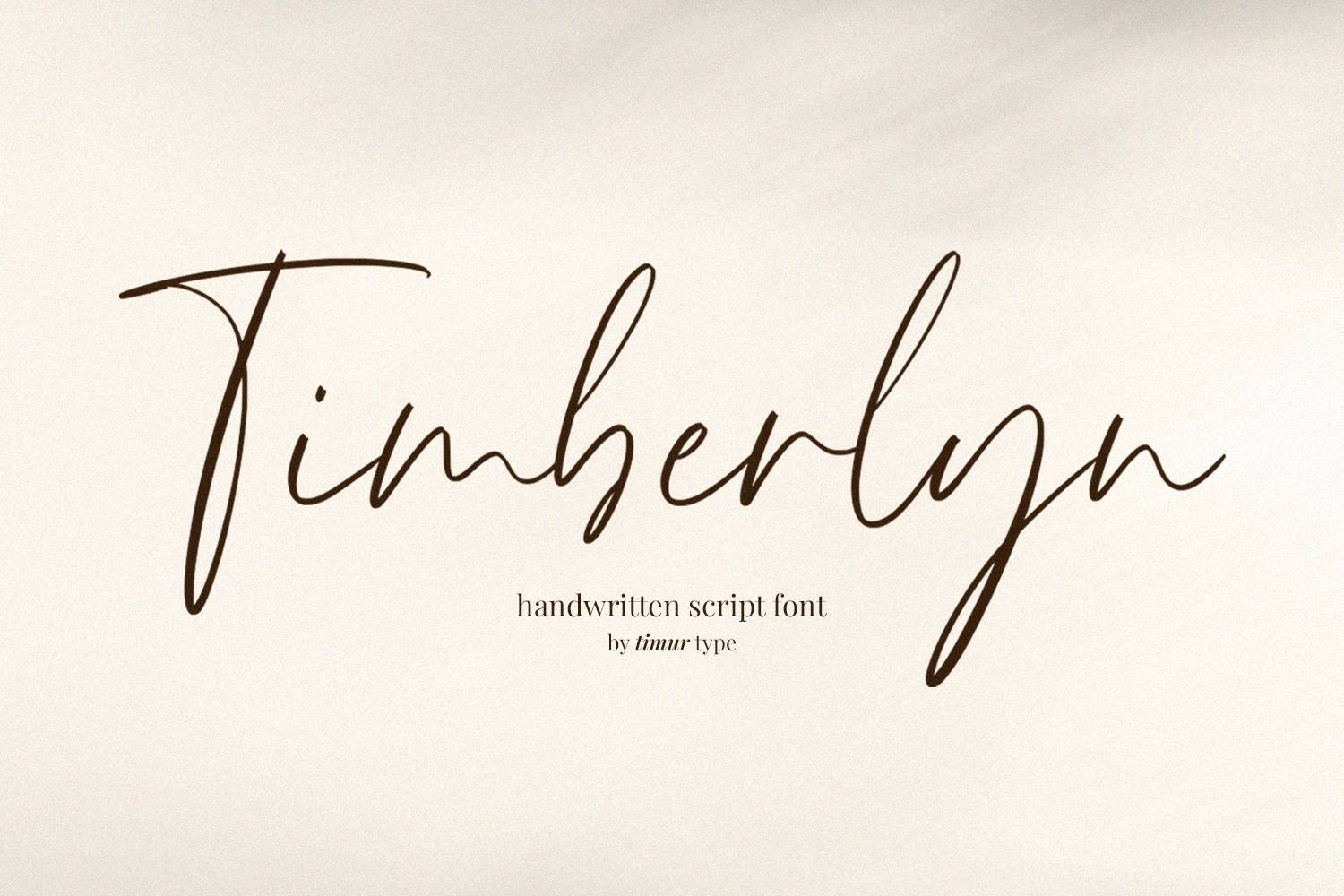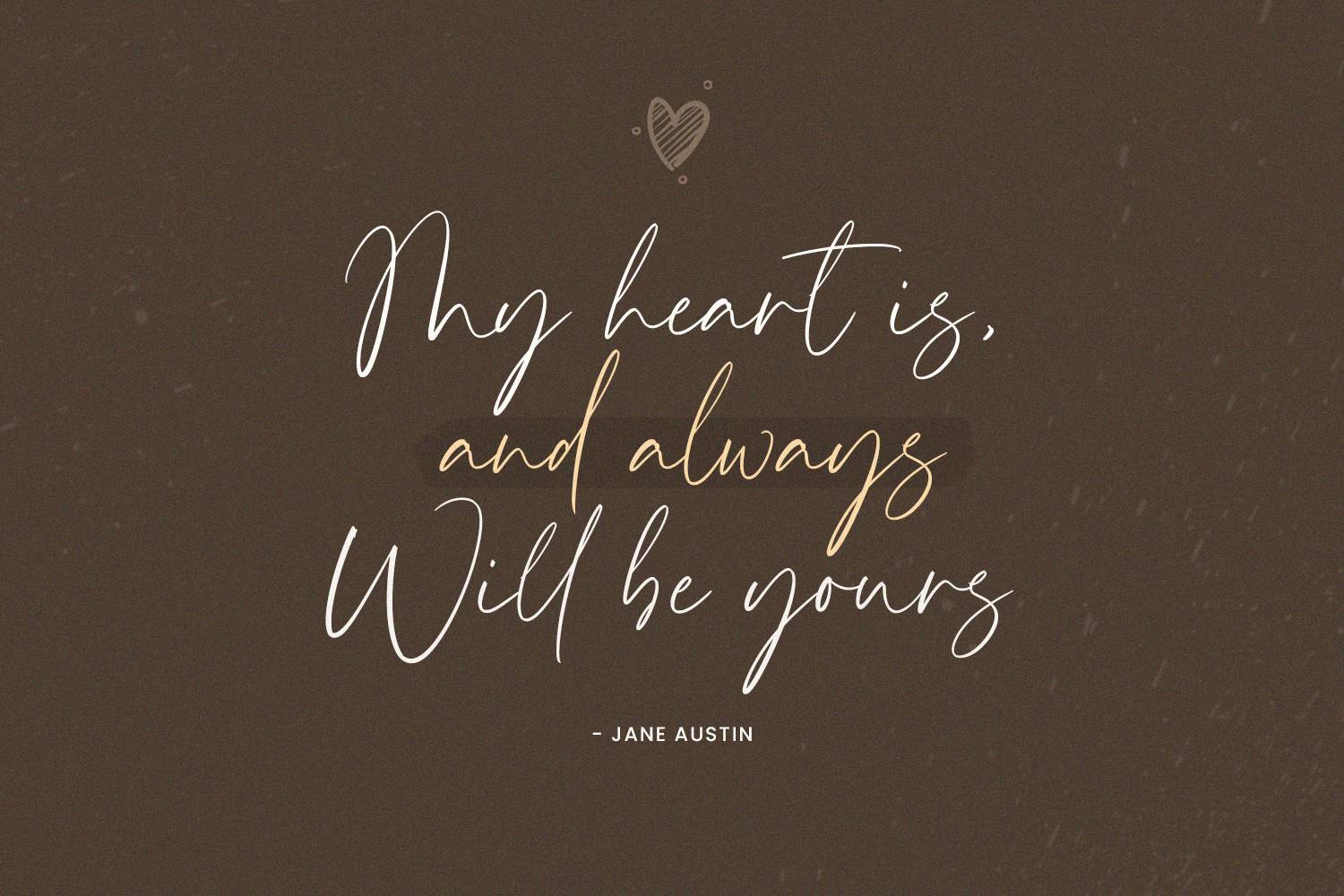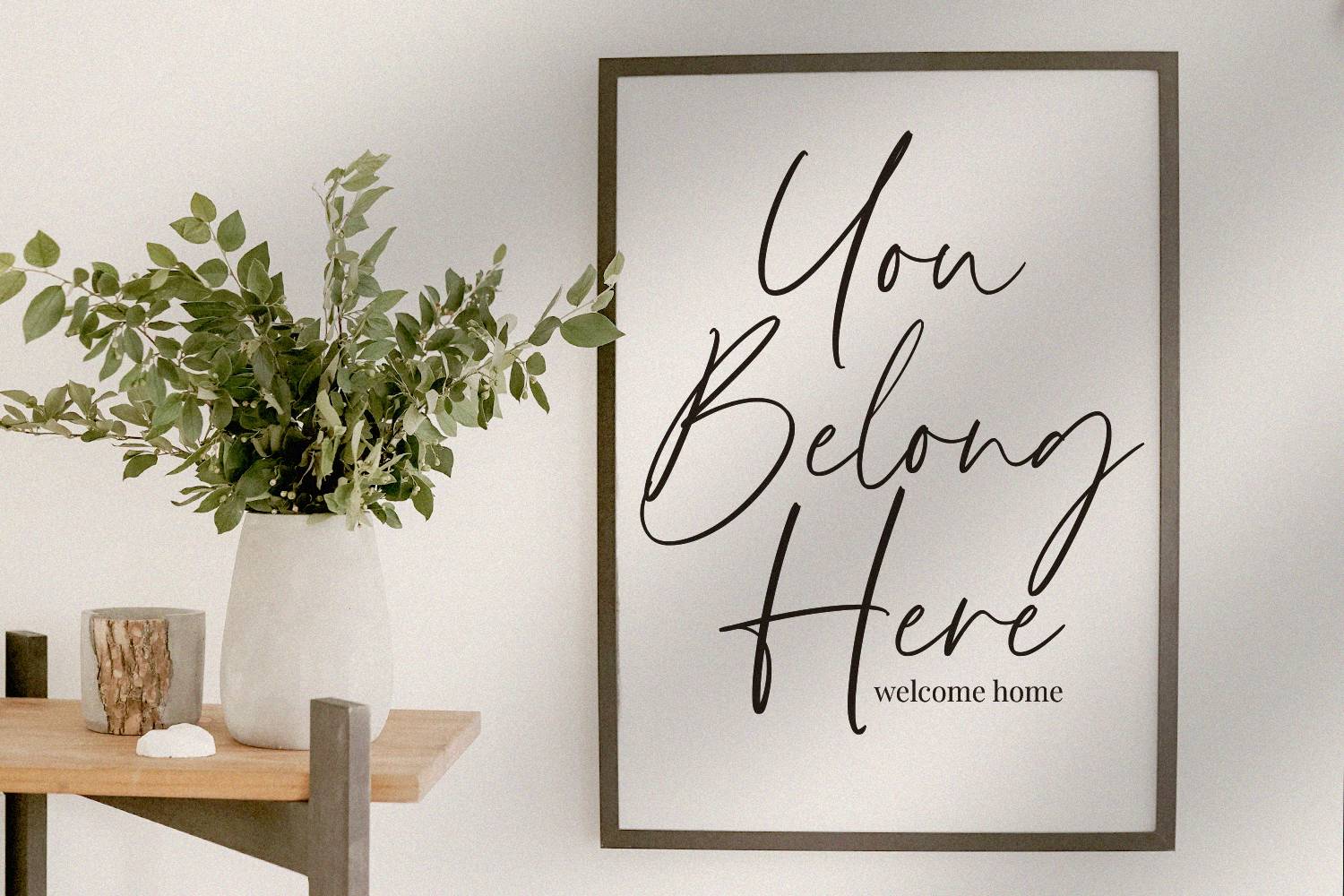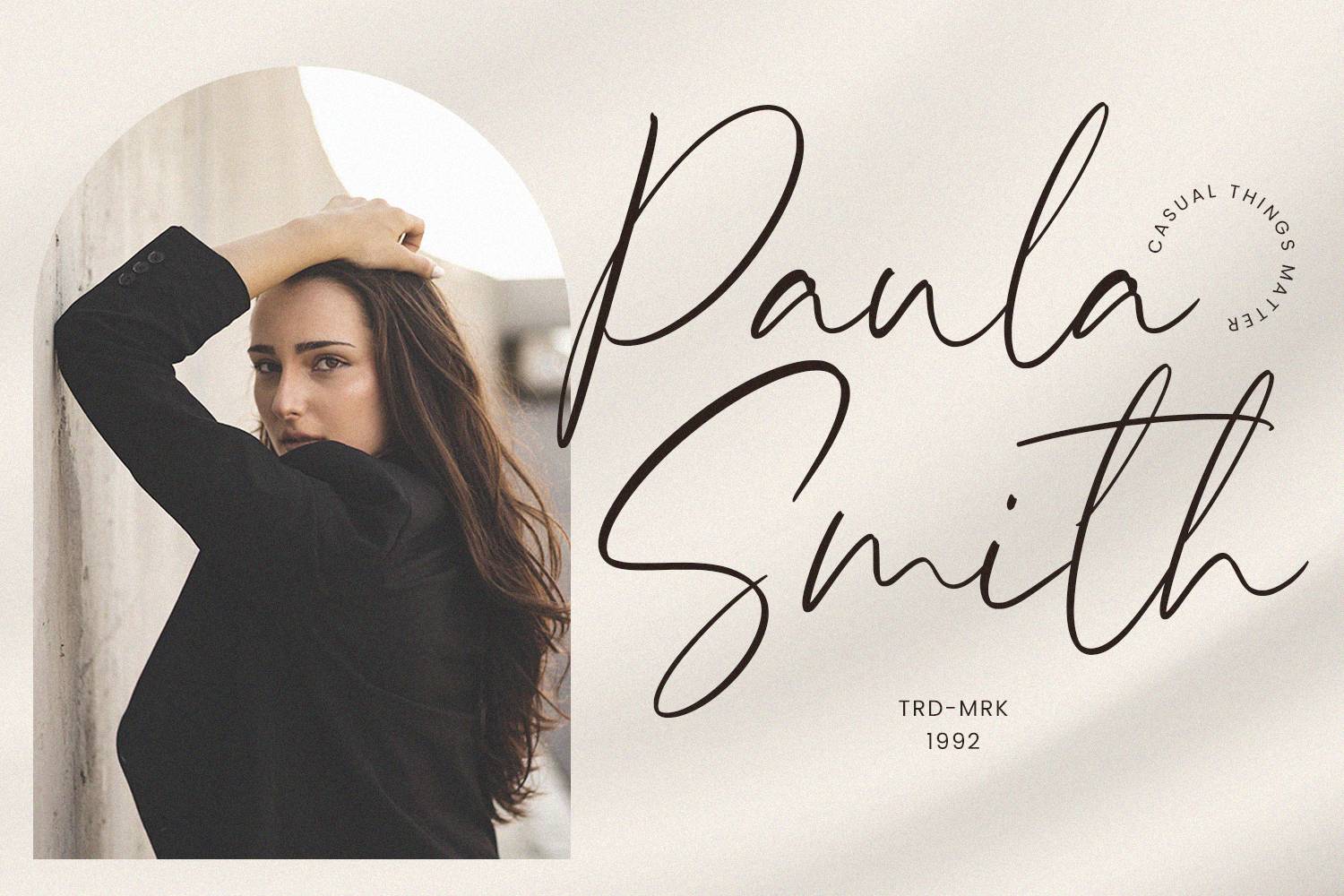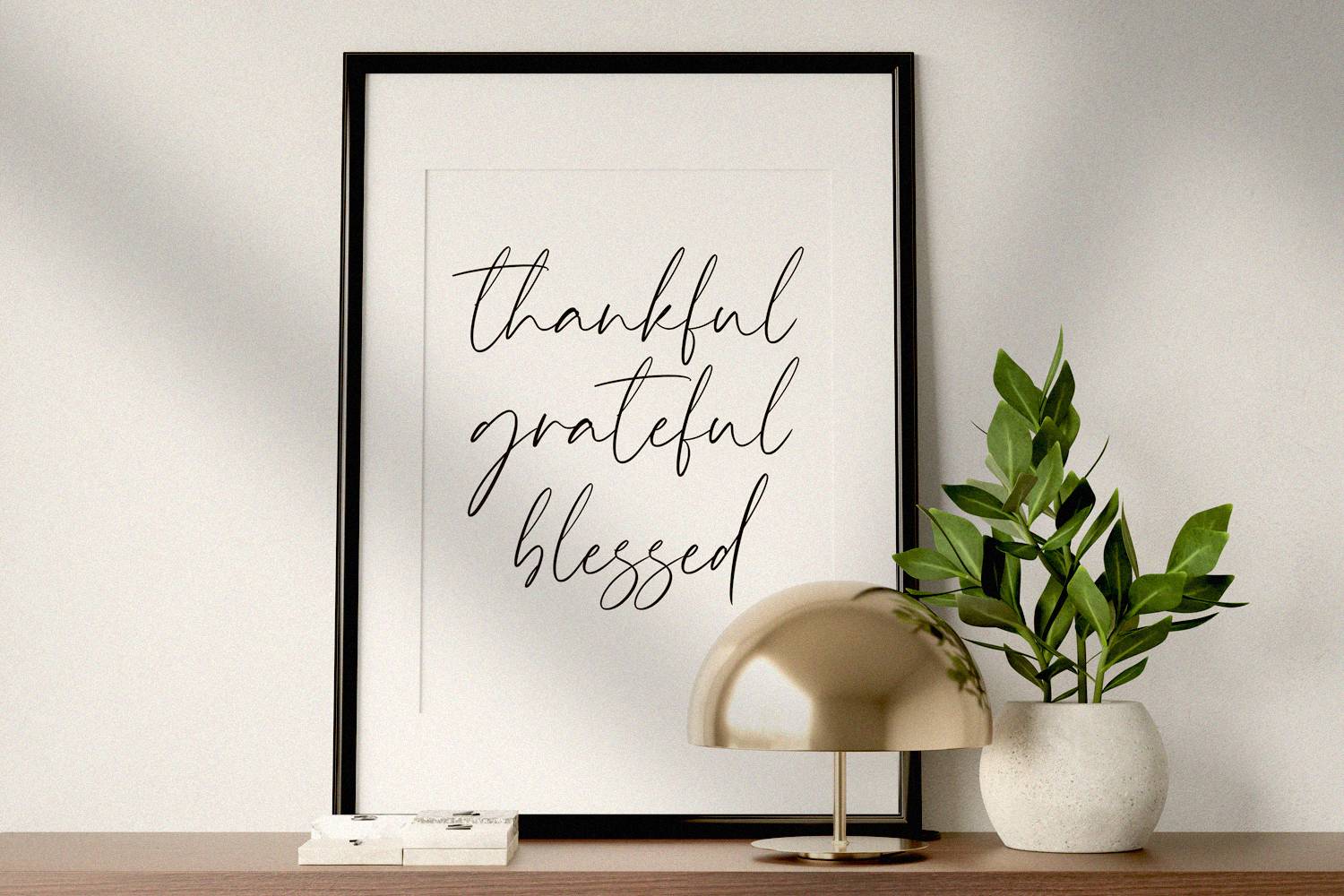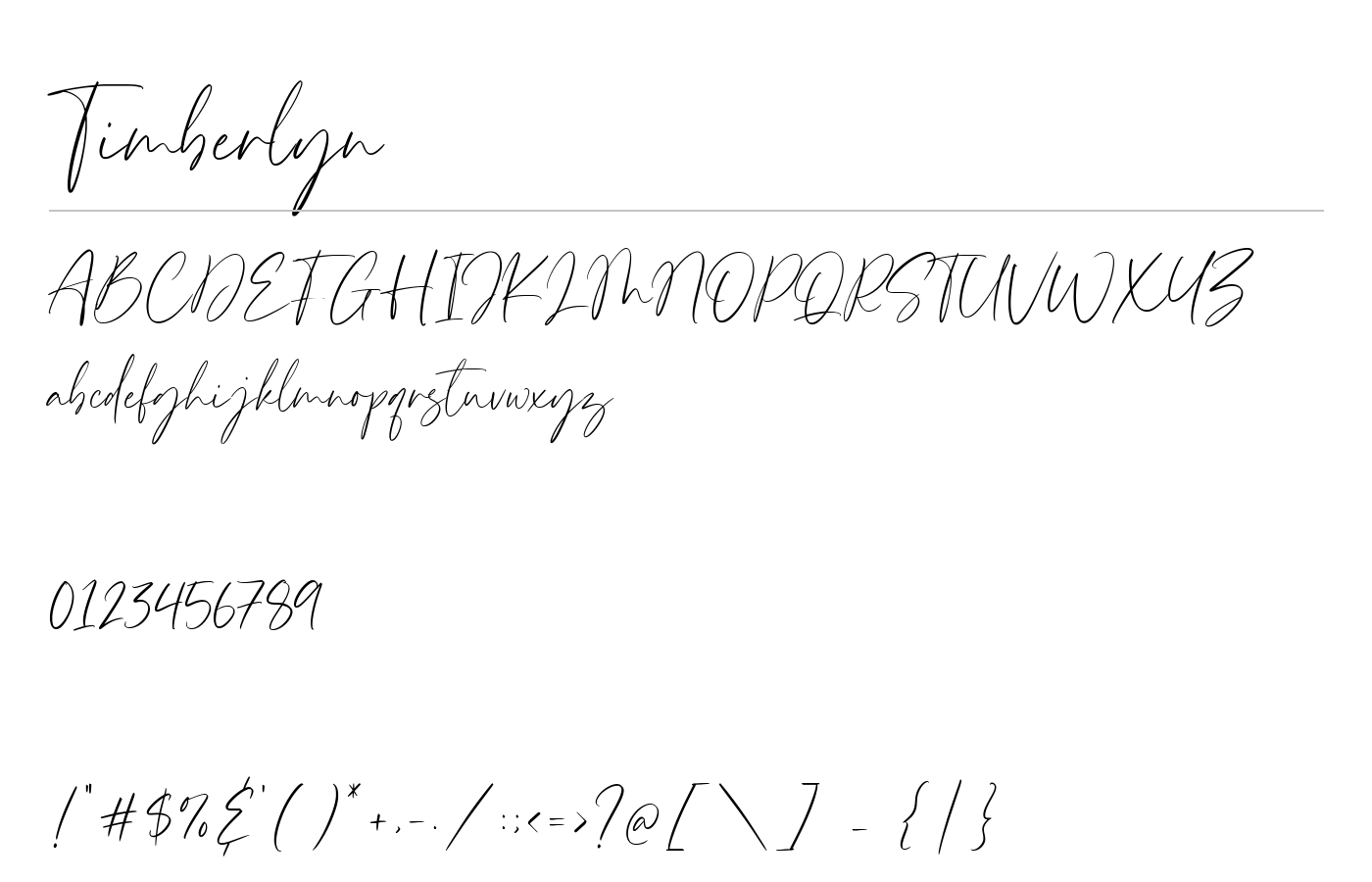
Timberlyn is a delicate, handwritten script font characterized by its light weight and elegant, flowing strokes that create a natural, personal feel. Its tall, narrow letterforms with subtle variations in line thickness give it a graceful and airy appearance, making it perfect for invitations, branding, and feminine or artistic design projects. This font’s refined style adds a touch of sophistication and warmth, ideal for creating intimate, stylish impressions.
Timberlyn Font
About Timberlyn Font